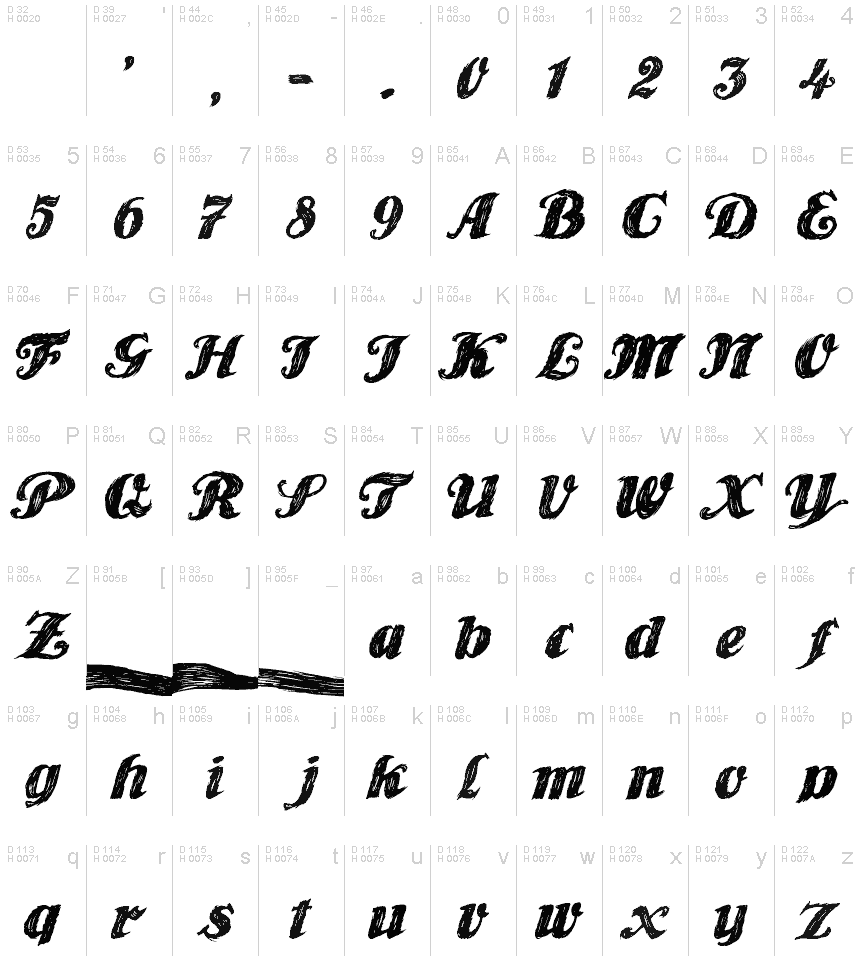
Player One
Player One is a bold, brush-style font that exudes an energetic and dynamic presence. Its fluid, organic strokes and pronounced weight create a striking visual impact, lending it a sense of movement and vibrancy. This font is well-suited for a range of applications, from eye-catching headlines and titles to impactful branding and logo design.
Its versatility allows it to seamlessly transition between modern, edgy aesthetics and more vintage, retro-inspired styles. Whether used alone or in combination with complementary typefaces, Player One stands out as a captivating and distinctive typographic choice.